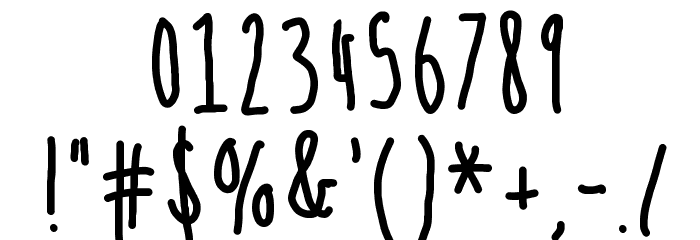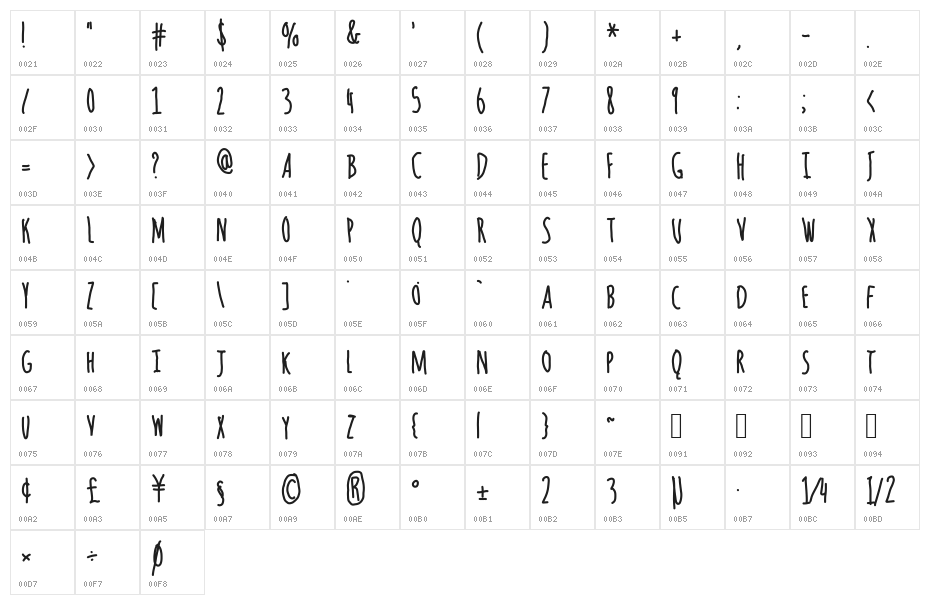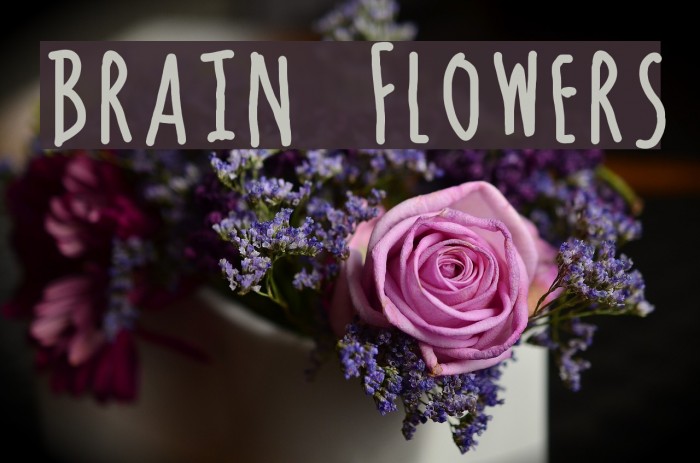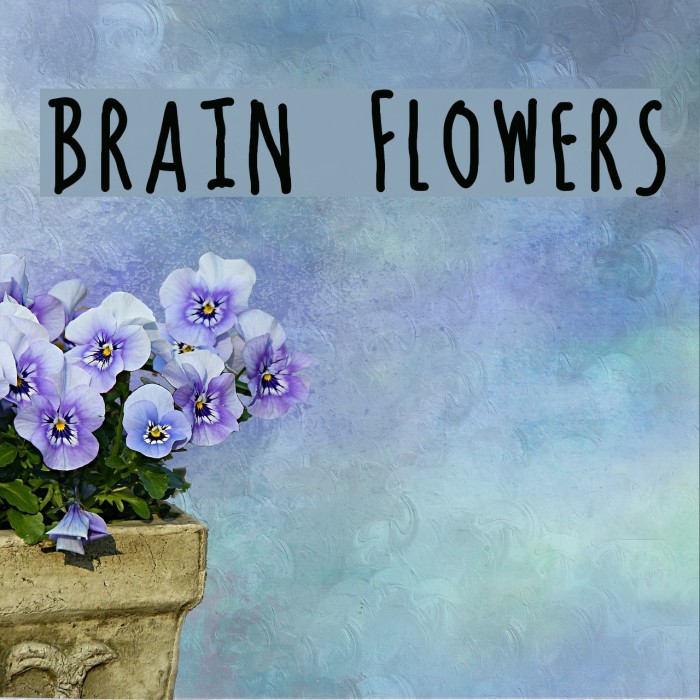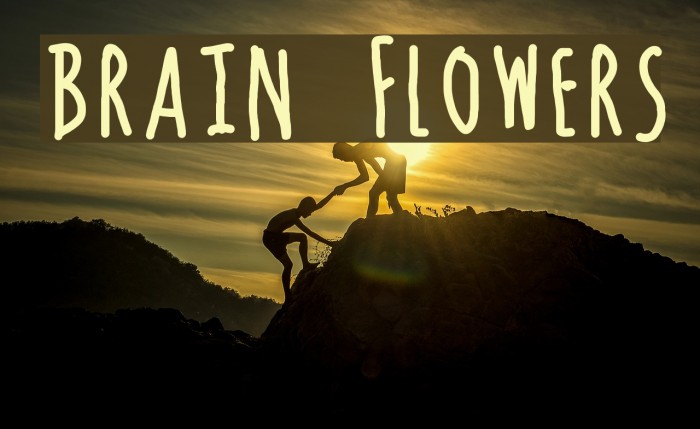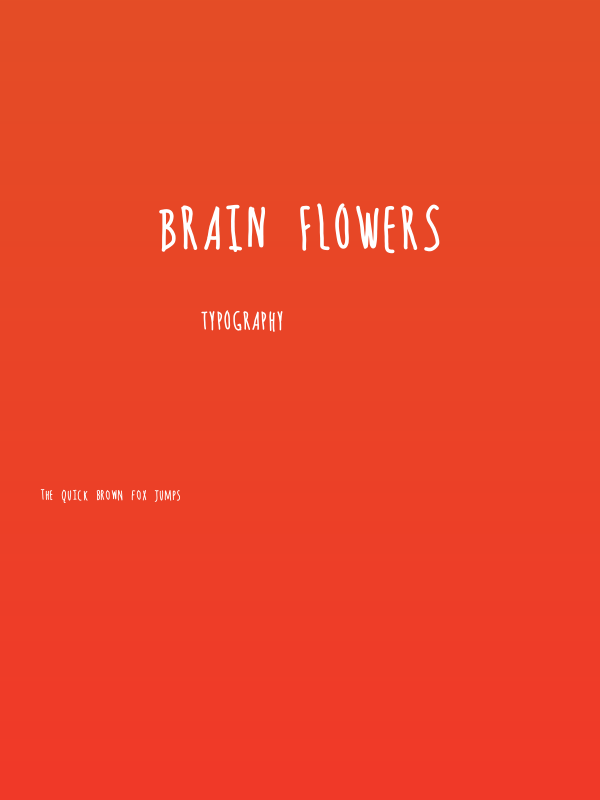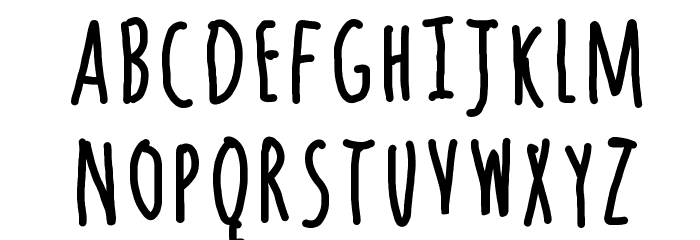
Brain Flowers Font
Brain Flowers Description
This font features a playful and organic handwritten style, characterized by its irregular strokes and casual appearance. The letters have a slightly uneven baseline, giving them a whimsical and informal feel. The uppercase and lowercase letters maintain a consistent style, with rounded edges and a slight slant, enhancing the hand-drawn aesthetic. The numerals and special characters follow the same design principles, ensuring a cohesive look throughout. This font is ideal for projects that require a personal touch or a creative flair, such as greeting cards, posters, or children's books.
| Proposed Projects | Ideal for greeting cards, posters, children's books, and creative projects. |